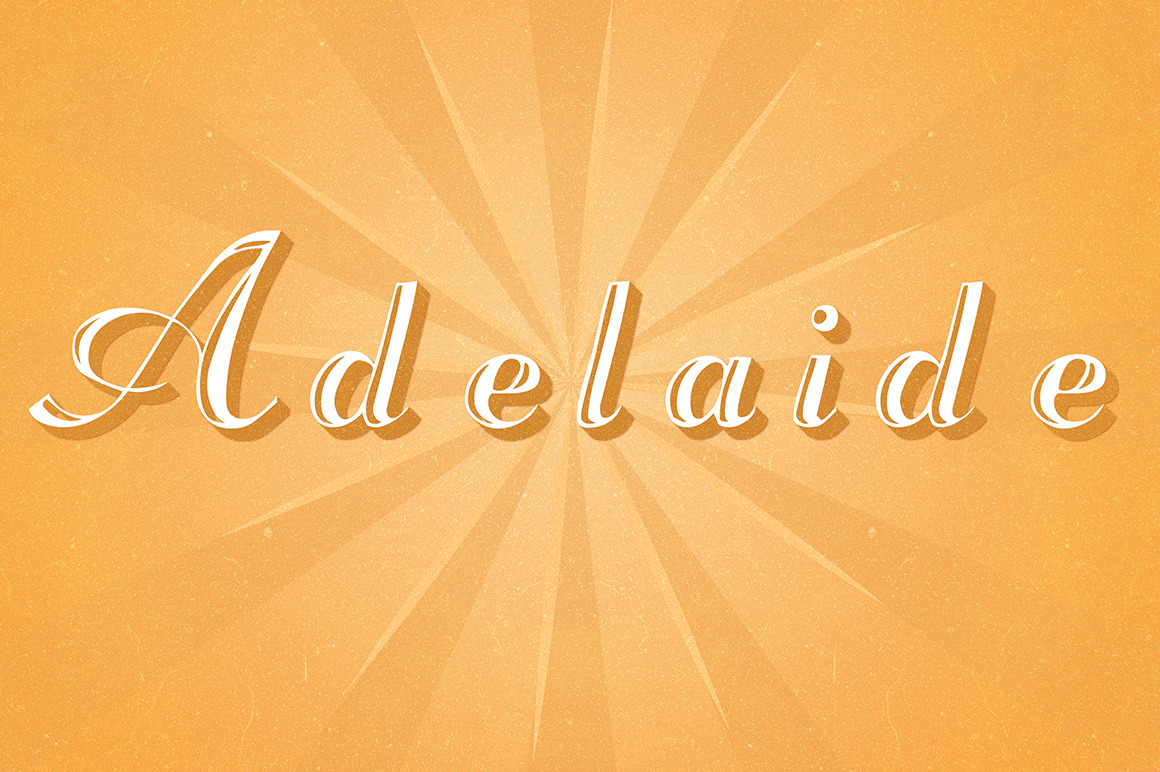
Adelaide Typeface
ADELAIDE Typeface An elegant, free-flowing script style. Excellent for certificates, citations, diplomas,greeting cards,logos and applications.